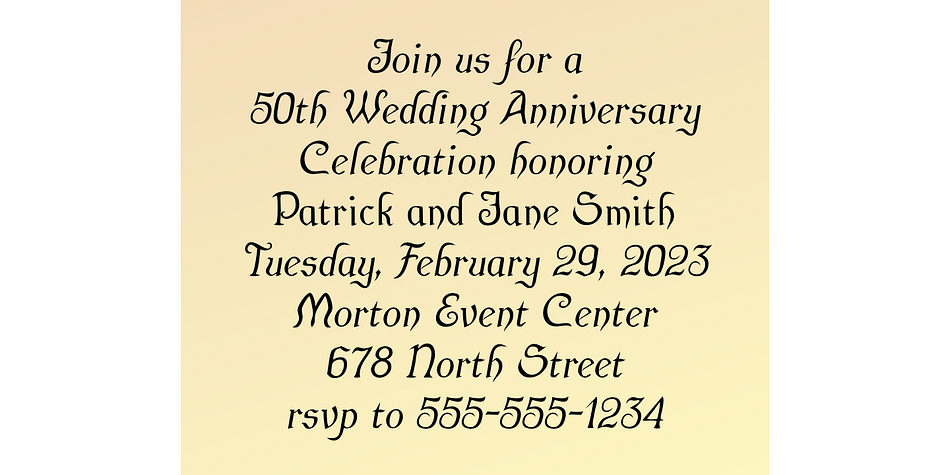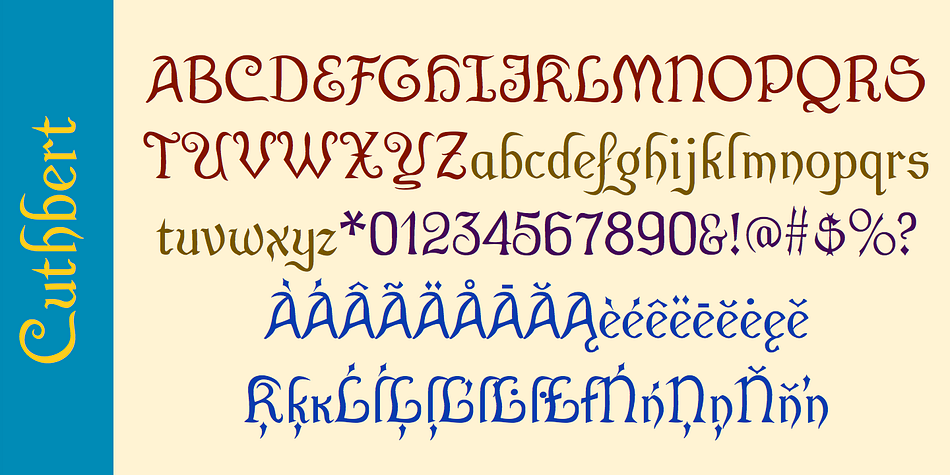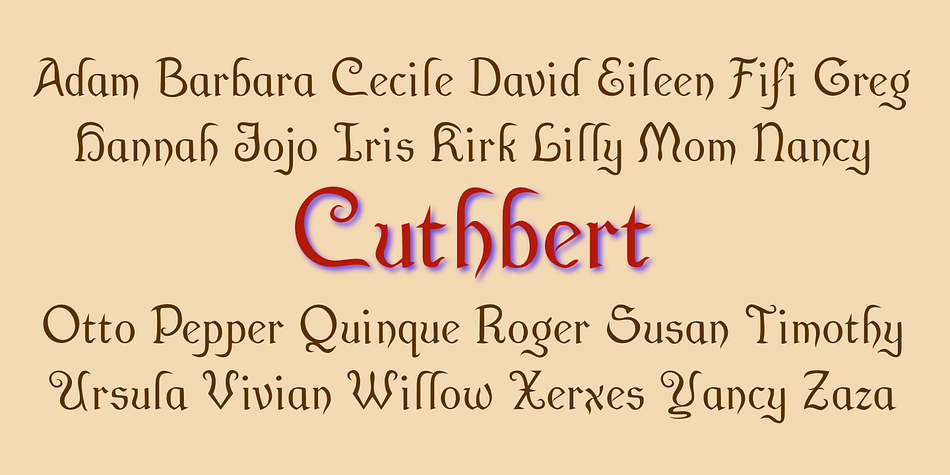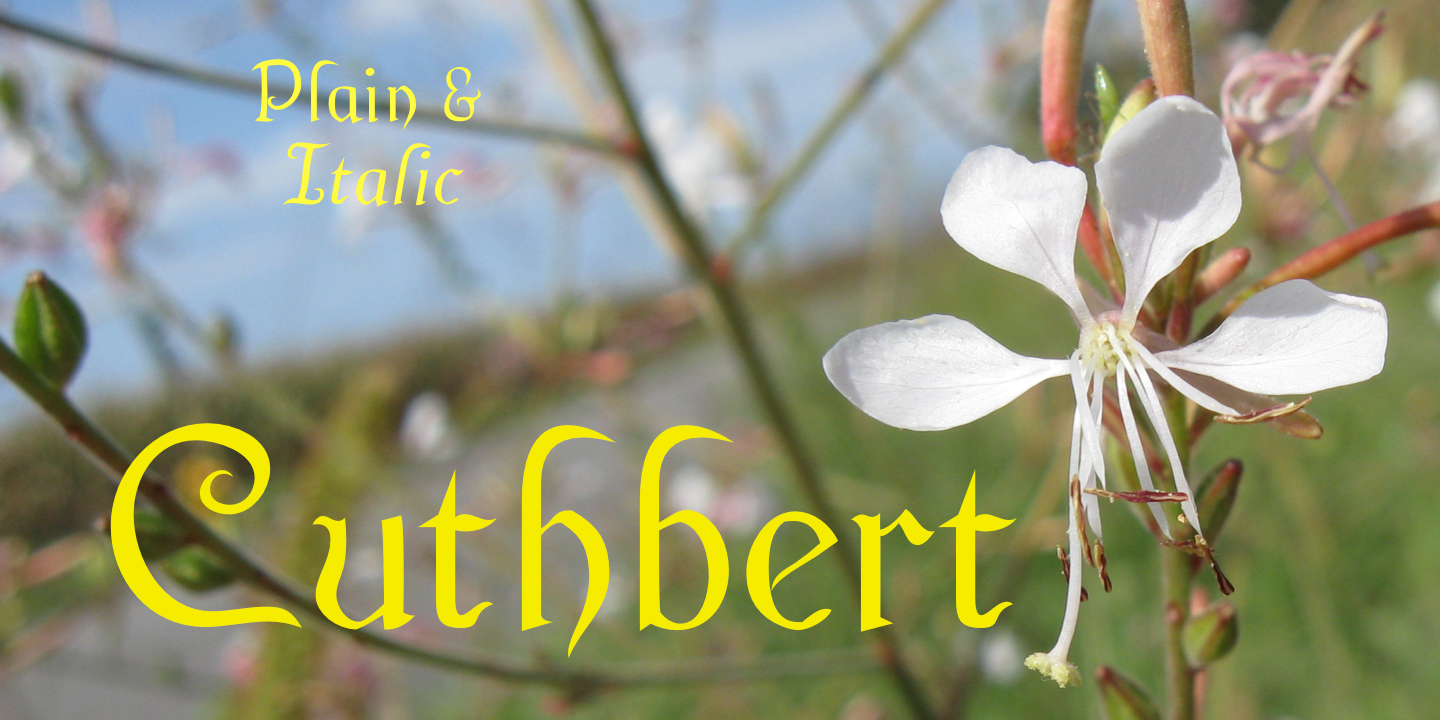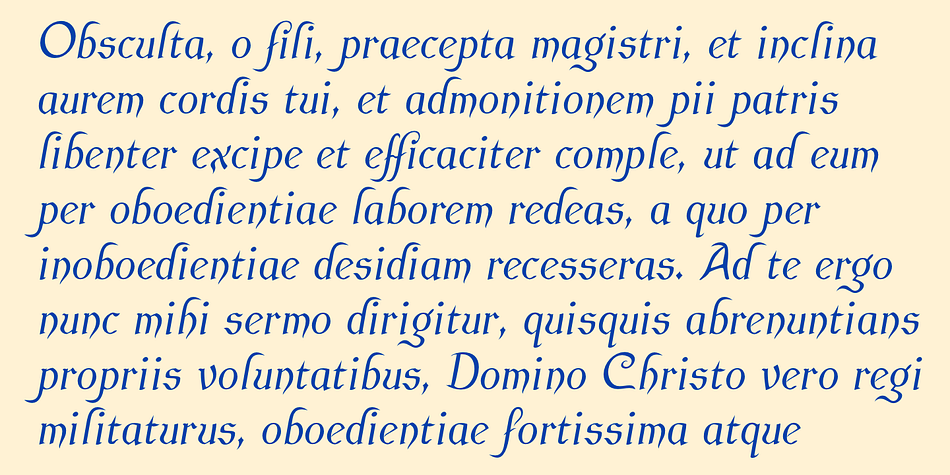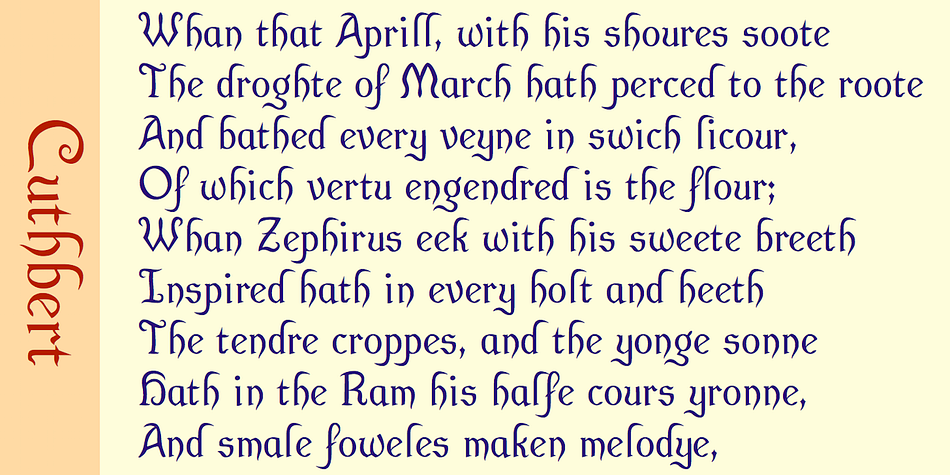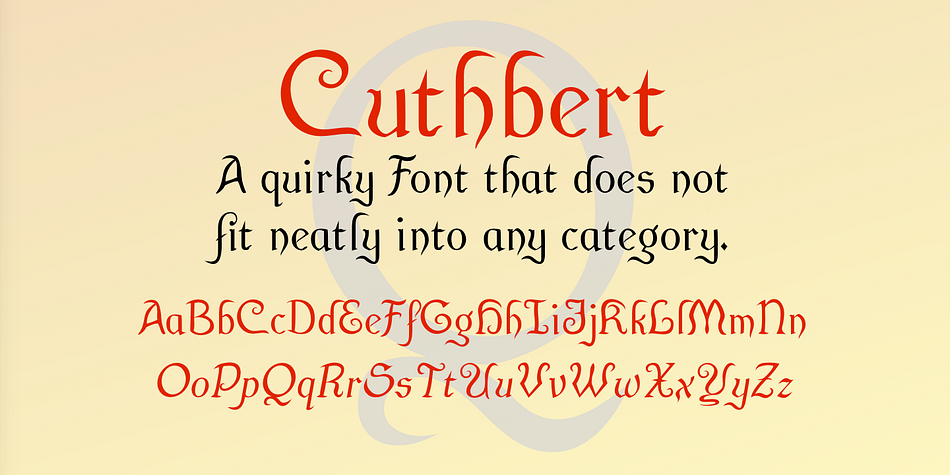
Cuthbert is a novelty font family. This typeface has two styles and was published by Ingrimayne Type.
Cuthbert is an unusual, semi-script, pseudo-medieval typeface. The capital letters are exuberant and whimsical. However, both the regular and italics styles are graceful enough to be used for purposes such as invitations.